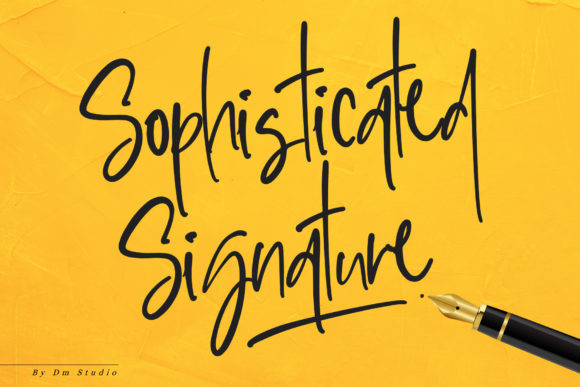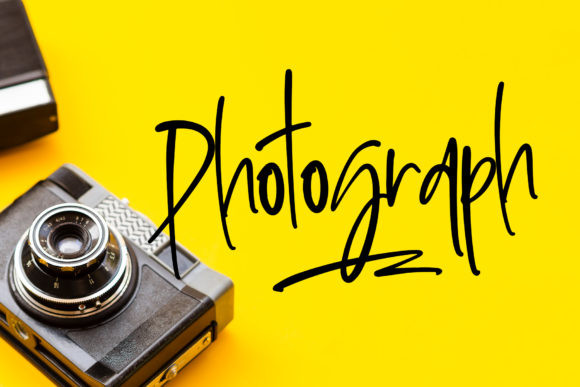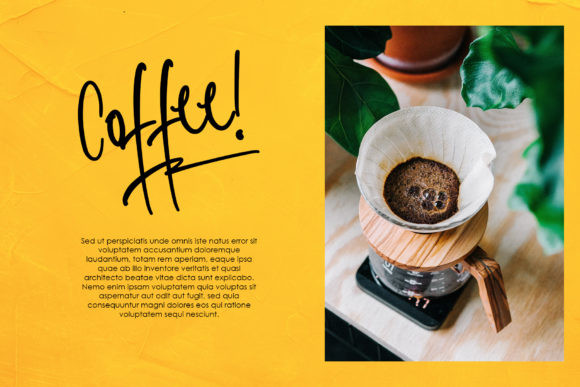
Sophisticated Font
Sophisticated Signature
Expressive, stylish with sophisticated look of handwritten font. Comes with extra swashes.
Create the perfect and unique design of your digital signature, blogs, website, branding, logos, and many more.